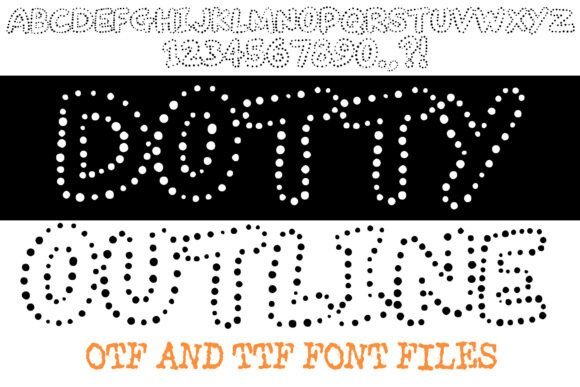
Introduction to Dotty Outline Font
The Dotty Outline fon t is a whimsical and eye-catching decorative typeface composed entirely of outlined dot patterns that trace the contours of each glyph.
It merges playful form with structural clarity, giving a sense of handcrafted design with a pop-art flair The spacing of the dots is consistent enough to ensure legibility while preserving the illusion of visual rhythm and movement.
Key Features of Dotty Outline Font
Why Choose Dotty Outline Font?